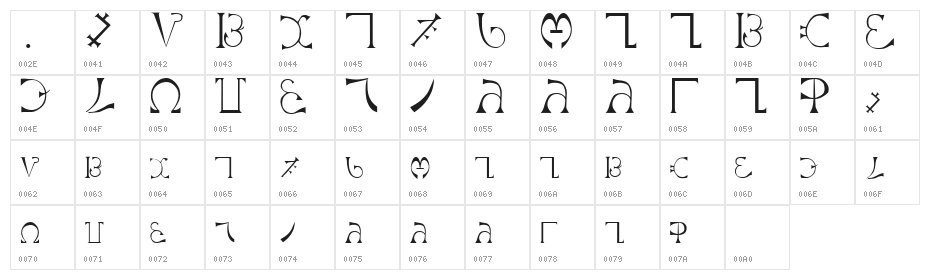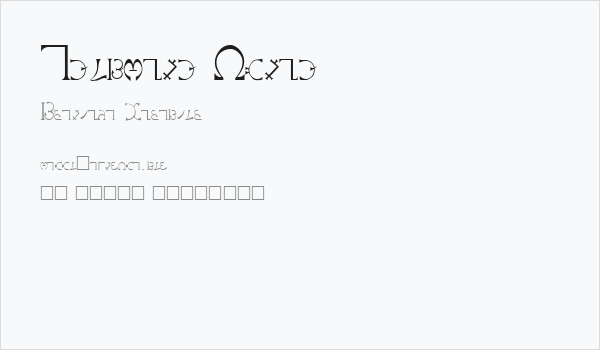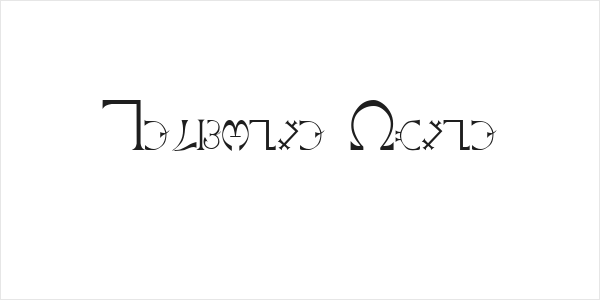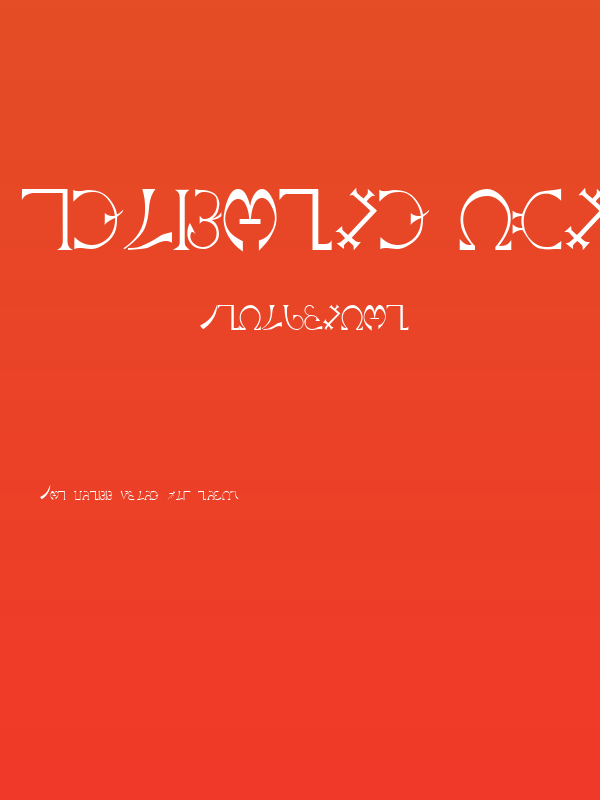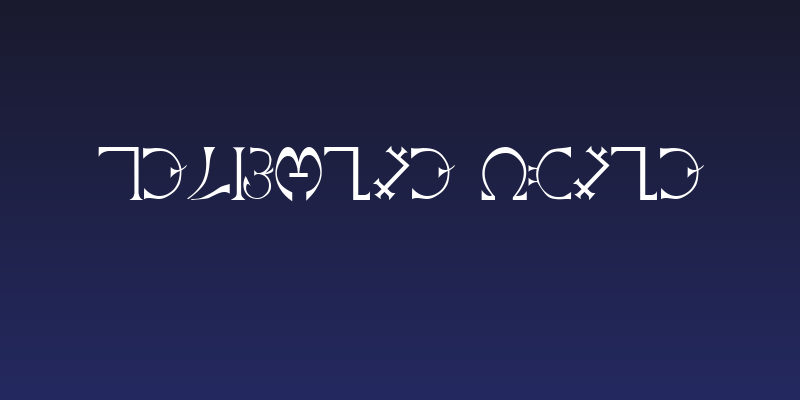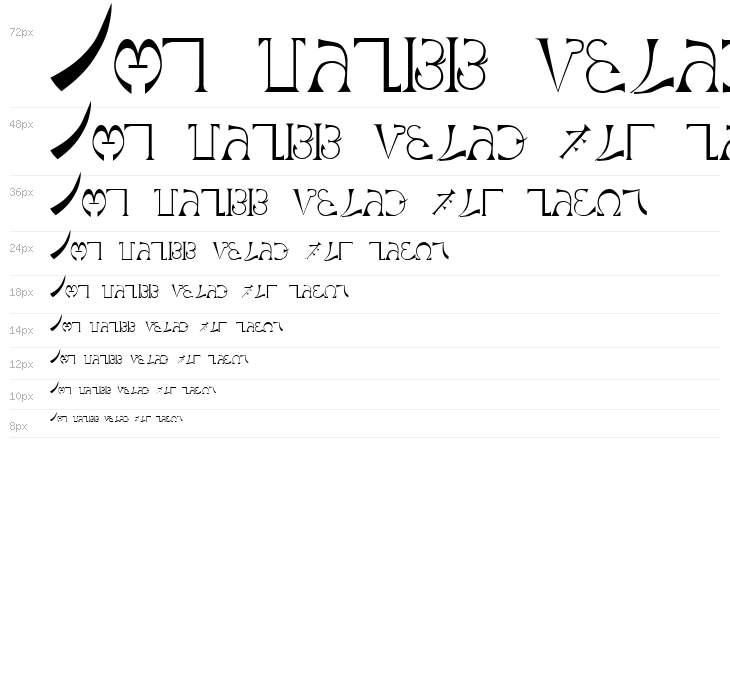
Enochian Plain Font
Enochian Plain Description
This font features a unique and mystical design, reminiscent of ancient scripts and esoteric symbols. Each character is crafted with intricate details, combining sharp angles with smooth curves, creating a sense of mystery and elegance. The uppercase and lowercase letters maintain a consistent style, with some characters incorporating additional decorative elements that enhance their visual appeal. The numbers and special characters are equally stylized, ensuring a cohesive look across all glyphs. This font's distinct appearance makes it ideal for projects that require a touch of the arcane or otherworldly.
| Overall Style | Mystical, Esoteric, Decorative |
| Use Case | Logos, Posters, Book Covers |
| Proposed Projects | Ideal for fantasy book covers, mystical event invitations, or themed posters. |